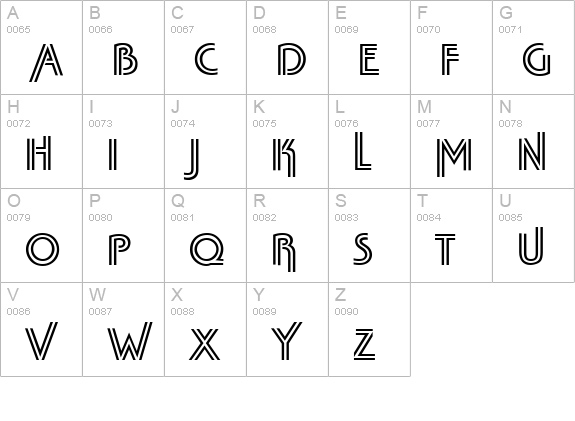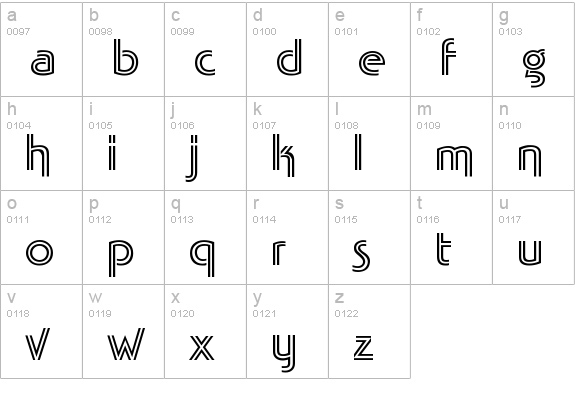
TabascoTwin-Regular Font Details
TabascoTwin-Regular is the standard, neutral variant in the TabascoTwin typeface family \xE2\x80\x94 well suited to general body text, paragraphs, and standard typographic work.
TabascoTwin-Regular is a versatile and stylish font that exudes a sense of modernity and sophistication. Its clean lines and subtly rounded edges give it a contemporary feel that is perfect for a wide range of design projects. This font is suitable for both headings and body text, making it a practical choice for any design application. What sets TabascoTwin-Regular apart is not just its sleek design, but also its accessibility. This font is available for free download at FontsMarket.com, making it a valuable resource for designers and creatives looking to add a touch of elegance to their projects without breaking the bank. Whether you're working on a branding project, a website design, or a print publication, TabascoTwin-Regular is sure to elevate your work with its sophisticated charm. Download this font today and unlock a world of design possibilities at your fingertips.